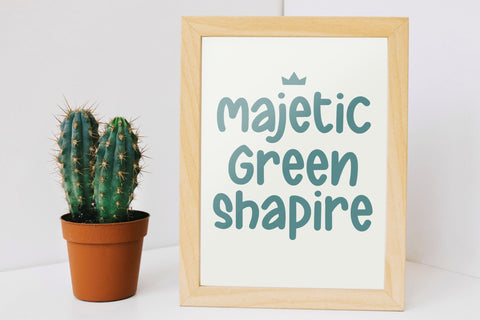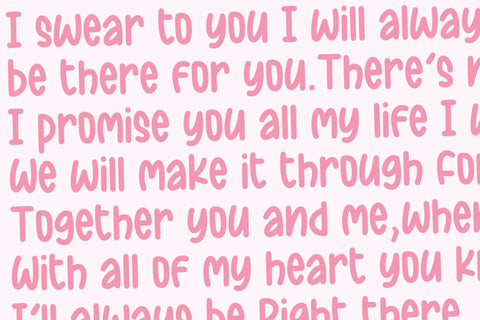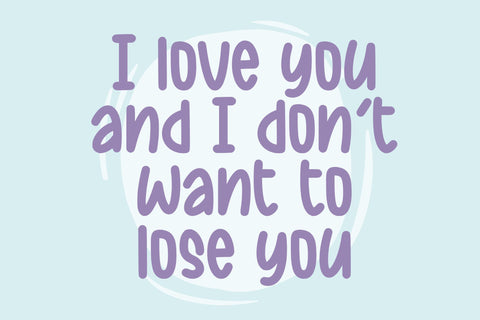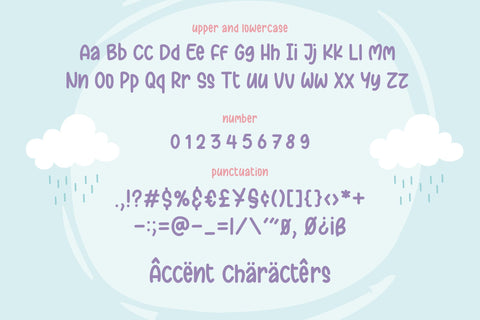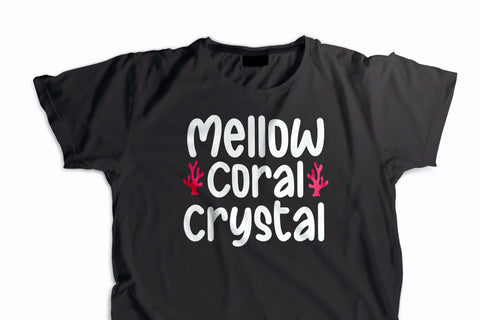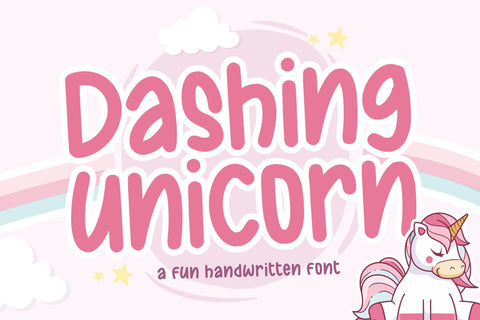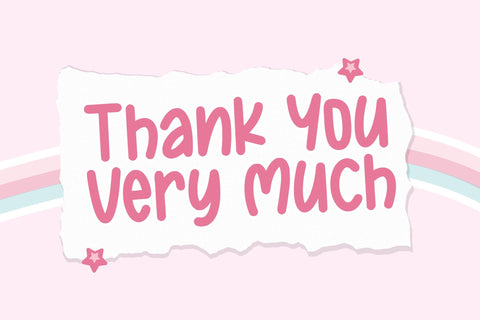
Dashing Unicorn Fun Handwritten font
Proudly Present, Dashing Unicorn Font.
Dashing Unicorn is a Fun Handwritten font.
Dashing Unicorn is perfect for product packaging, branding project, megazine, social media, wedding, or just used to express words above the background.